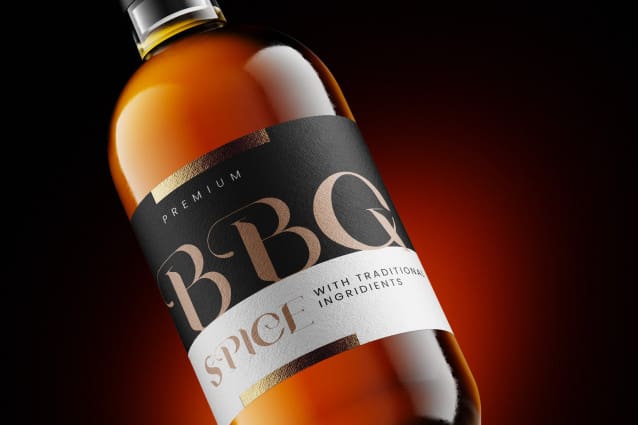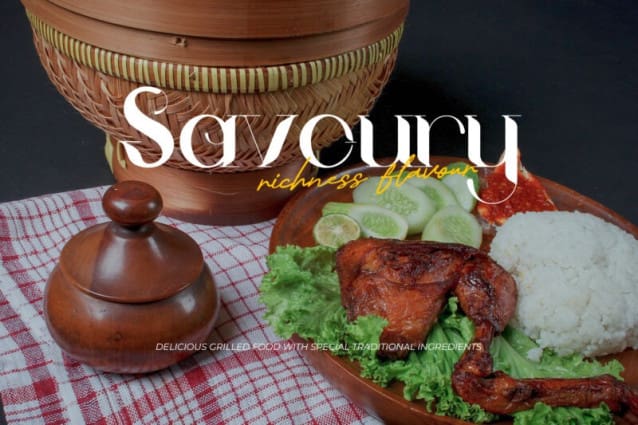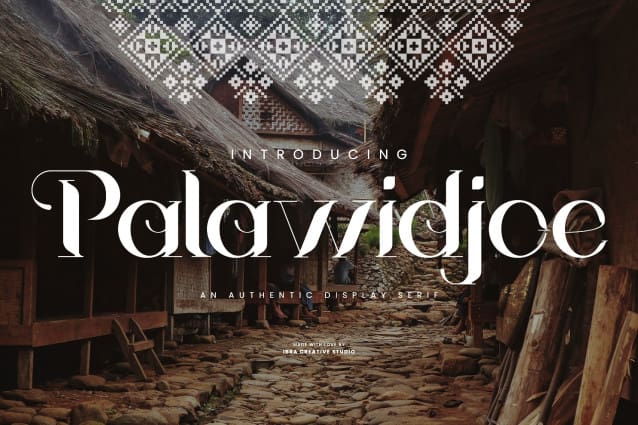
Palawidjoe Font
Palawidjoe Font is an authentic display serif font that effortlessly bridges the past and present with its timeless elegance and unique character. Inspired by heritage and tradition, this font embraces classic serif elements, showcasing distinctive strokes, refined serifs, and carefully sculpted letterforms. Palawidjoe carries an air of sophistication and grace, making it ideal for projects that require a blend of authenticity and modern readability. Each character in this font reflects meticulous craftsmanship and attention to detail, embodying a sense of legacy while retaining a contemporary appeal. Palawidjoe adds a touch of heritage and a timeless aesthetic to any design, making it a standout choice for branding, editorials, and refined print materials.